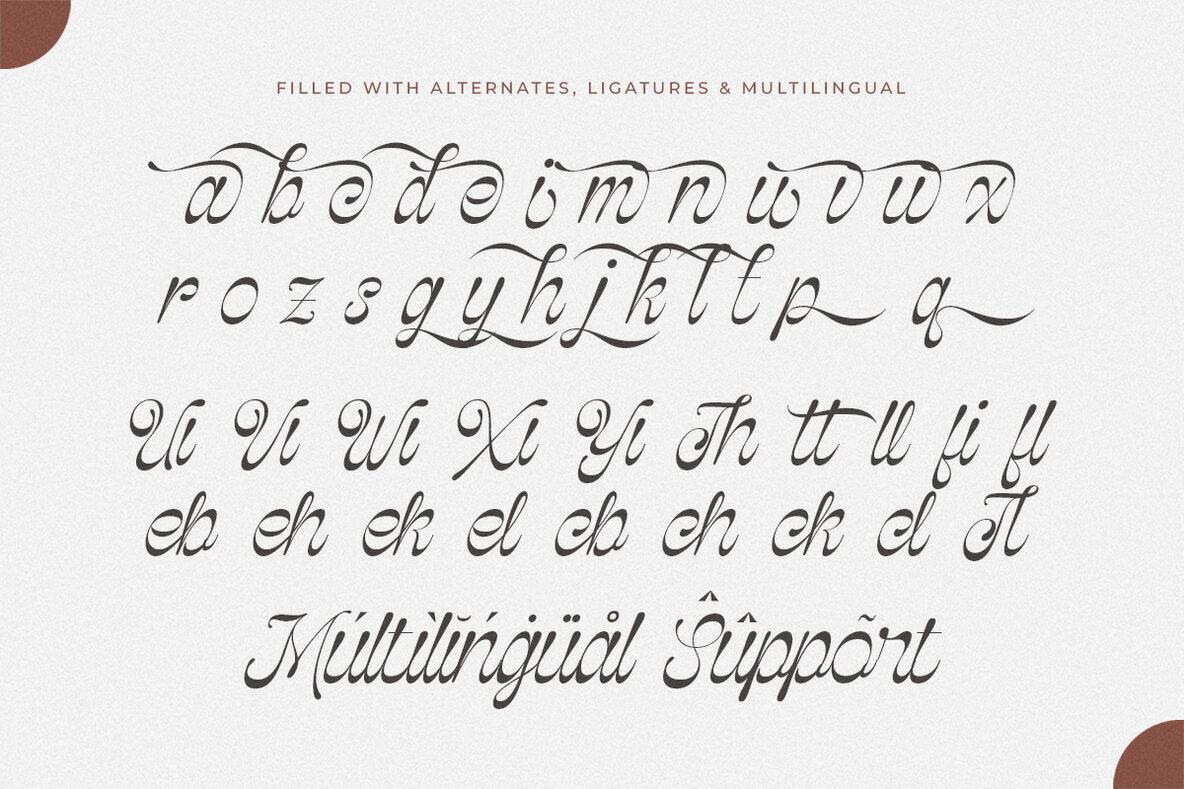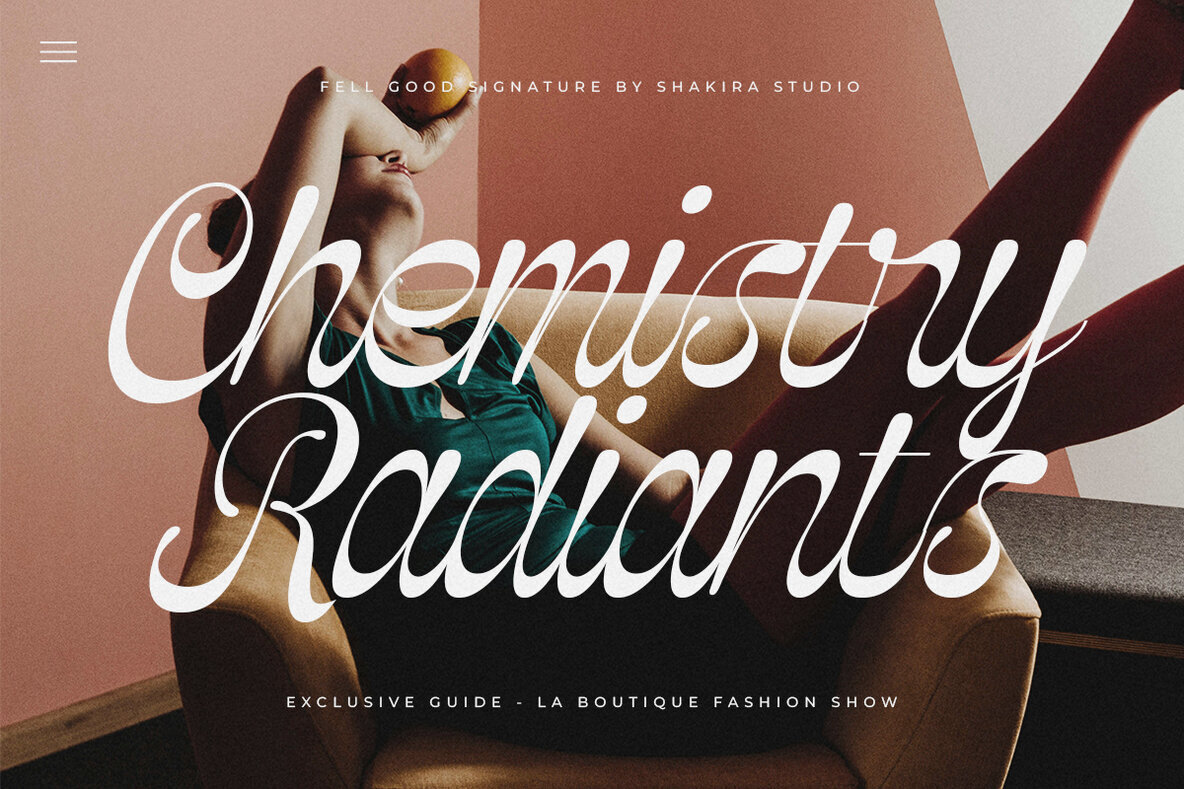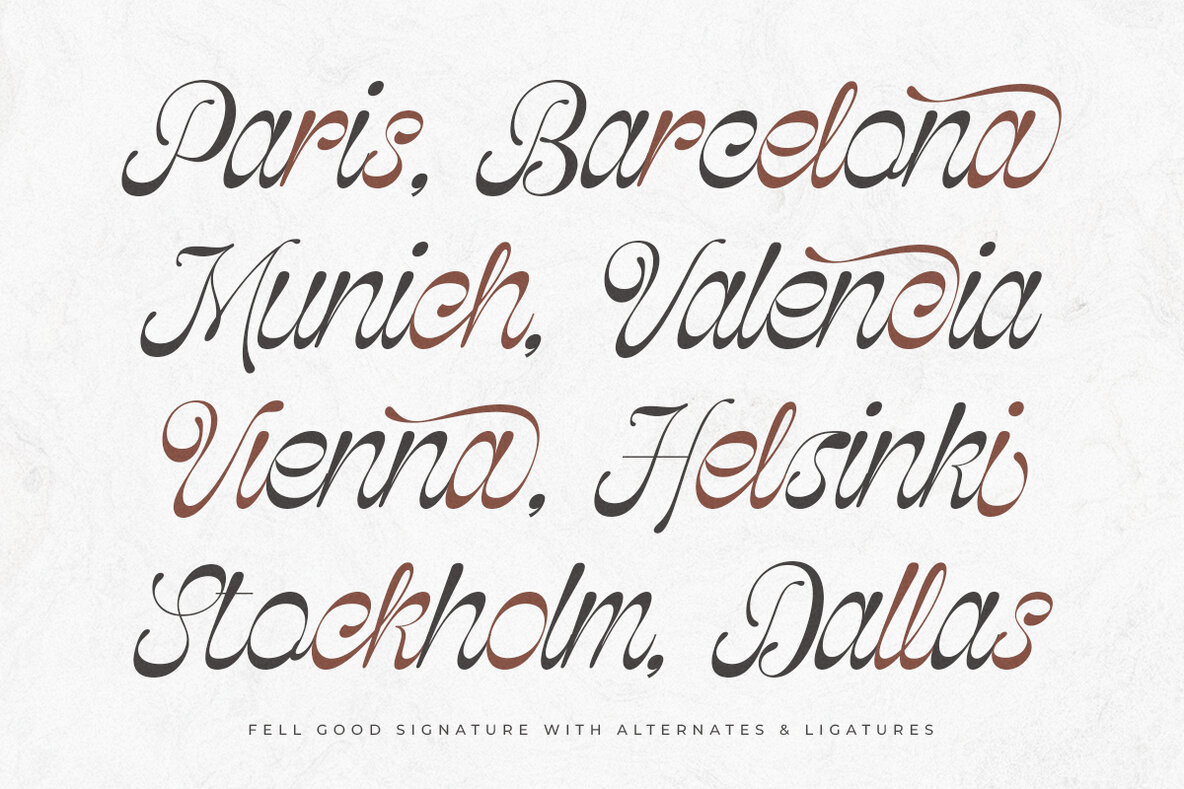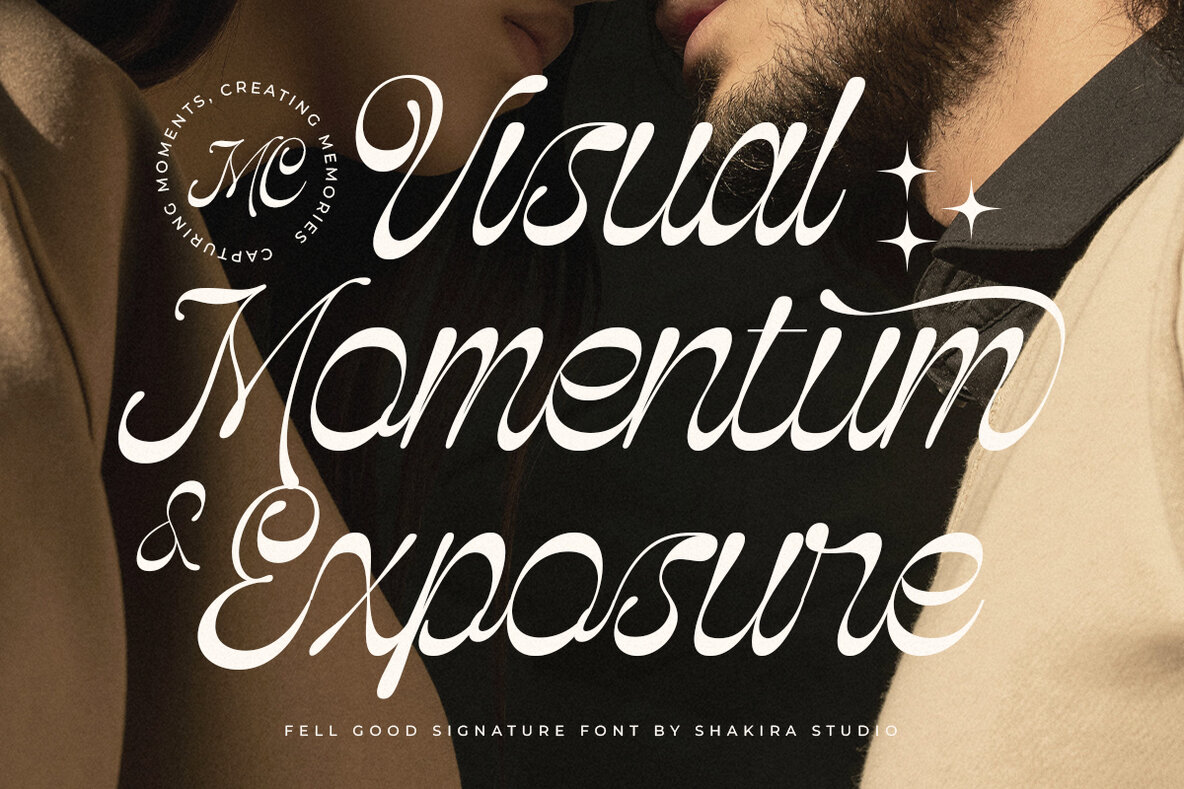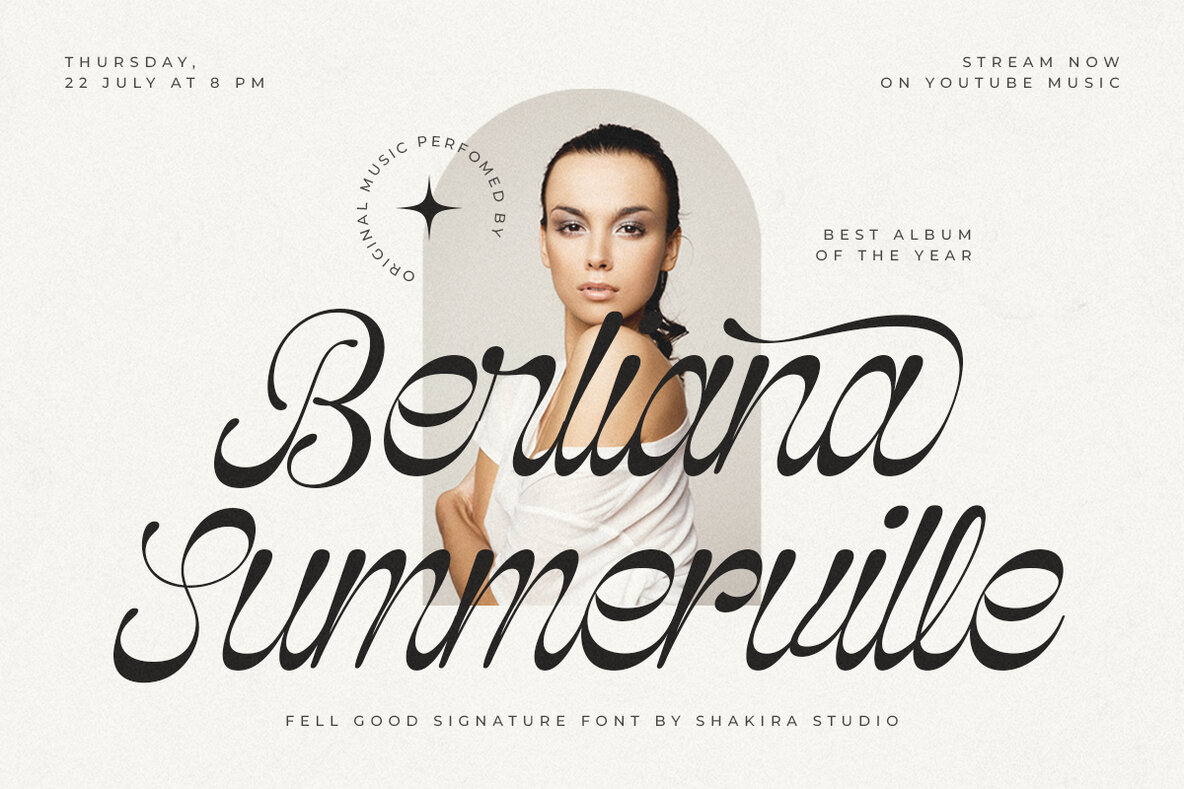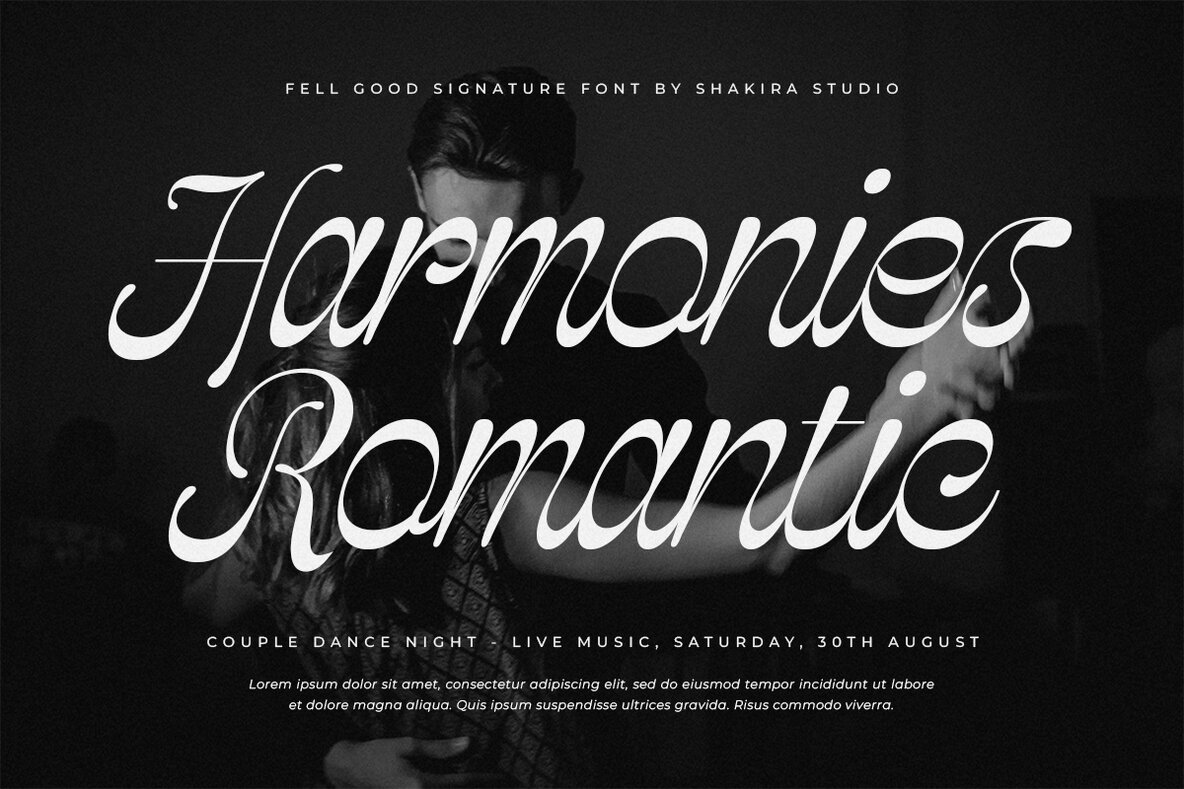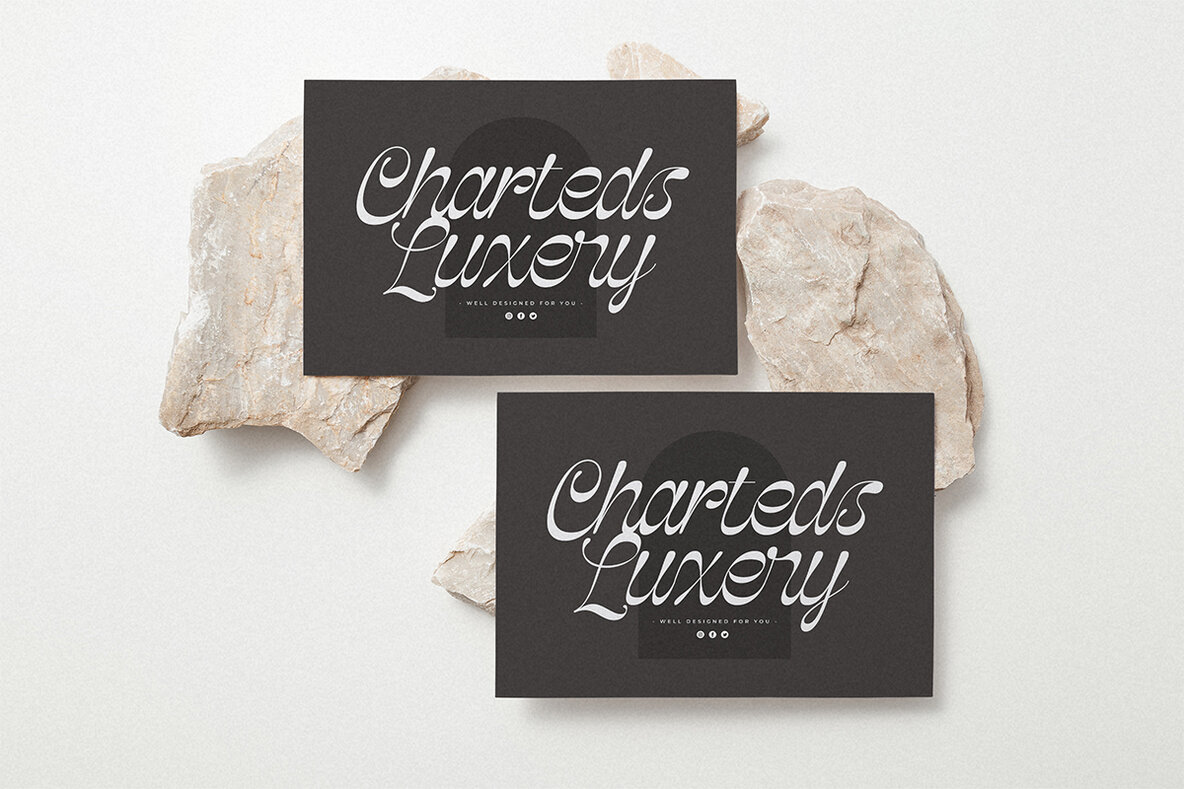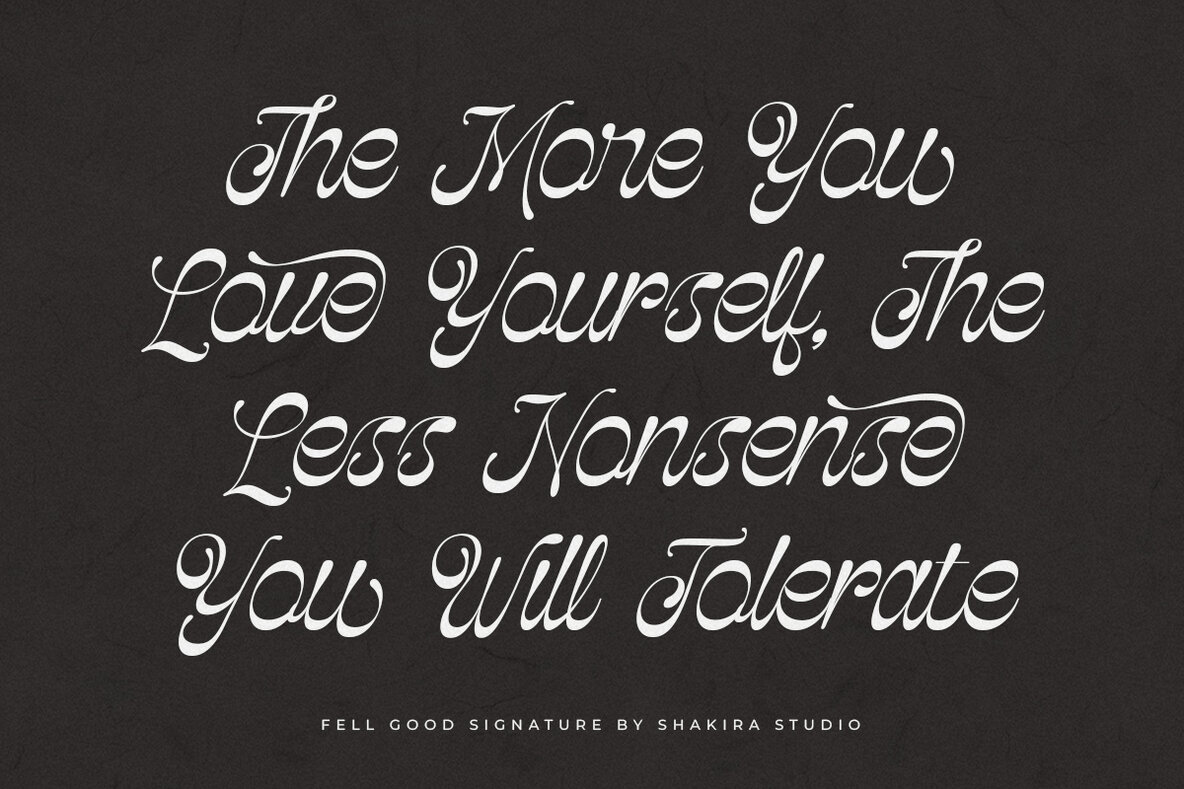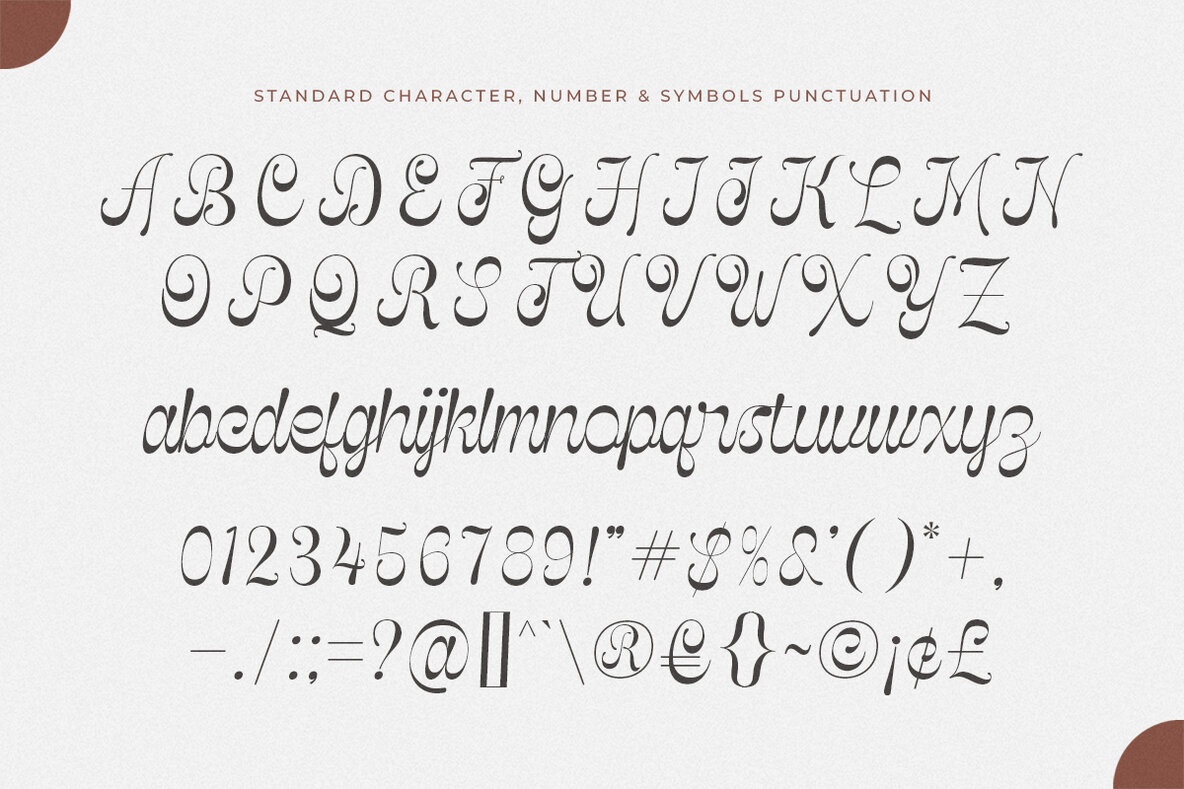
Fell Good Signature Font
Fell Good Signature Regular
Fell Good Signature Italic
Introducing Fell Good Signature, a modern luxury script font that exudes elegance and sophistication. Perfect for creating high-end designs, this versatile typeface offers both regular and italic versions. With its smooth, flowing strokes and stylish alternates and ligatures, Fell Good Signature is ideal for branding, invitations, and editorial projects. Elevate your design with this chic and timeless script font. Here's what you get: Multilingual character supports : (Afrikaans, Albanian, Catalan, Croatian, Czech, Danish, Dutch, English, Estonian, Finnish, French, German, Hungarian, Icelandic, Italian, Lithuanian, Maltese, Norwegian, Polish, Portuguese, Slovenian, Spanish, Swedish, Turkish, Zulu)